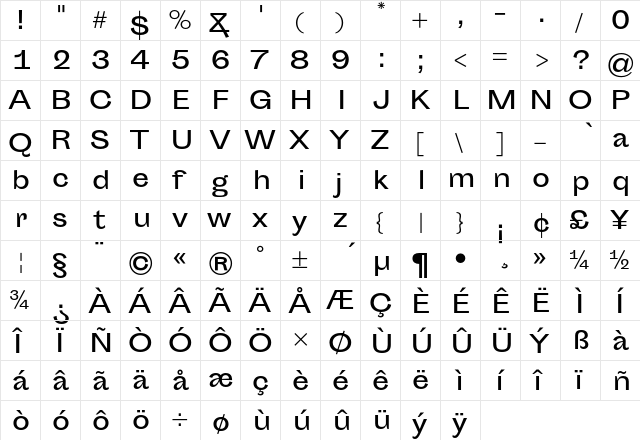
Sporting Grotesque Regular
| Foundry | Lucas LE BIHAN |
| Designer | Lucas LE BIHAN |
Design Context for Sporting Grotesque Typeface
Sporting Grotesque brings high-energy athletic personality to the page — its confident, muscular forms are built for impact.
A natural choice for gym brands, fantasy sports, jersey lettering, and action-driven headlines.
Font Pairing: Use alongside a condensed or geometric sans for supporting copy — keep the pairing bold, functional, and free of ornament.
Pro Tip: Use Sporting Grotesque in all-caps headlines where its athletic energy can fully express itself. Pair with a solid, simple sans for supporting text.